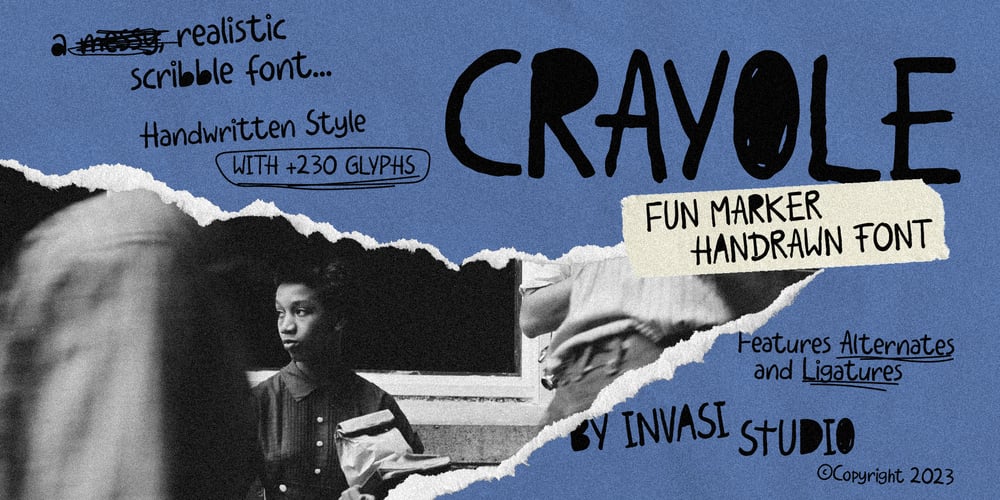
Crayole Font Family was designed by Gha Arizal and published by Invasi Studio. Crayole contains 1 styles and family package options. A vibrant font style with lively scribbles and organic charm, this font is a powerhouse of creativity, bringing a vibrant touch to any project. It’s not just playful – Crayole offers stylistic alternates with filled glyphs that allow designers to add an extra layer of organic authenticity to their designs by creating endless combinations.The perfect choice for headlines that pop, quotes that inspire, captivating editorial designs, and dynamic print posters, Crayole is ideal for a variety of display projects. Create visually stunning and organically engaging designs with Crayole, and let your creativity run wild!